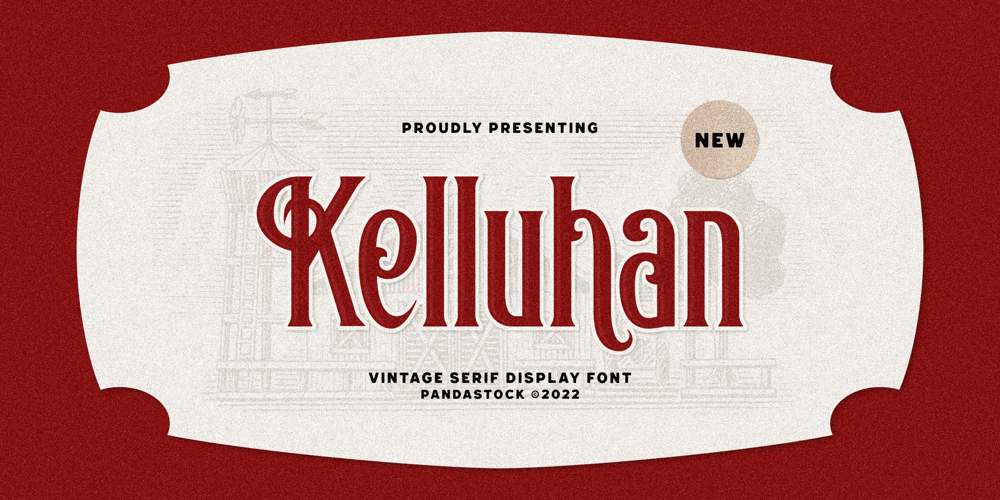
Kelluhan Font Family was designed by Aulia Savira Putri and published by Pandastock. Kelluhan contains 1 styles and family package options. Kelluhan is a vintage typeface with visual elegance, smooth curves, and beautiful ligatures clear, making your work look true and attractive.